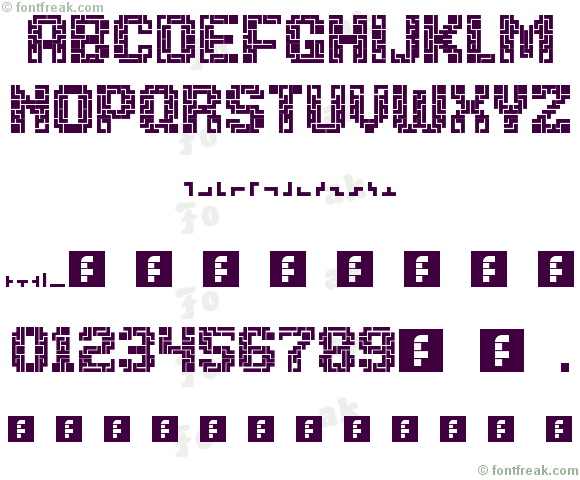
Tetrisyde Regular
Tetrisyde, designed by Gene Buban, is a striking display font that captures attention with its unique geometric style. This freeware font features a pixelated design reminiscent of classic video games, making it ideal for projects that require a playful yet bold aesthetic. The characters exhibit a uniform stroke weight with minimal contrast, emphasizing clarity and legibility while retaining a fun visual appeal. The arrangement of the letters creates a sense of rhythm, making Tetrisyde stand out in any design.
This font is particularly well-suited for a variety of creative applications. It excels in eye-catching movie posters, where its distinct style can convey a sense of adventure or nostalgia. Additionally, Tetrisyde works beautifully for branding projects, especially those aimed at a younger audience or tech-savvy consumers. It can also enhance the visual impact of event flyers, particularly for gaming events, or even as a quirky choice for restaurant menus that want to convey a modern, playful vibe. Graphic designers, small business owners, and content creators will find Tetrisyde an excellent choice for projects that require a touch of personality.
What sets Tetrisyde apart is its ability to combine fun with functionality. While it is visually striking, it does not compromise on readability, making it versatile for both digital and print mediums. The font's unique character shapes invite creativity, allowing designers to explore various layouts and compositions. If you’re looking for a way to inject some character into your designs, the Tetrisyde font free download offers an accessible option that can elevate your projects while appealing to a broad audience. With its playful essence and modern appeal, Tetrisyde is sure to leave a lasting impression.